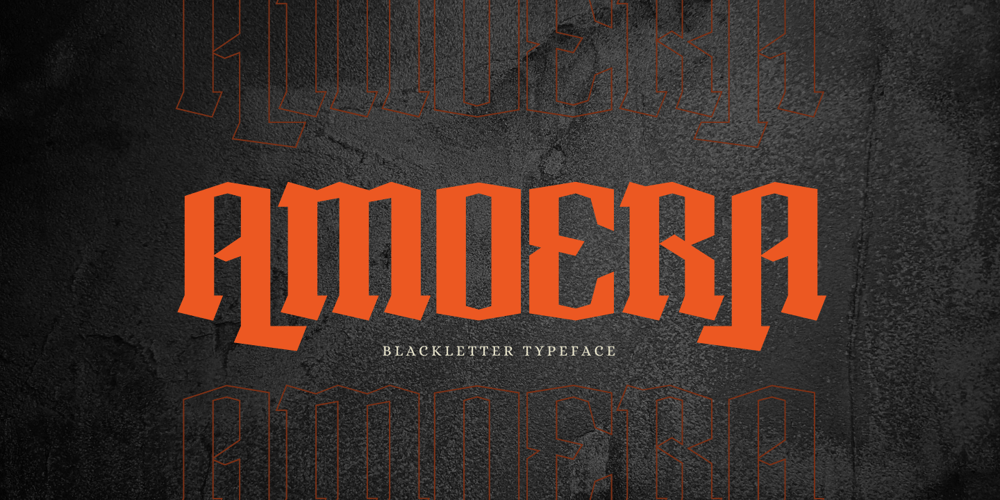
Amoera Blackletter Font Family was designed by Bayu Suwirya and published by Illushvara. Amoera Blackletter contains 1 styles and family package options. A simple and modern gothic font inspired by the classic line with the style of script during the Midle Ages.Recognized for its dramatic and ornate appearance, this typeface features sharp, angular lines and dense,dark strokes that evoke a sense of history, tradition, and formality.Amoera offers beautiful typographic harmony for a diversity of design projects, including logos & branding,social media posts, advertisements & product designs.